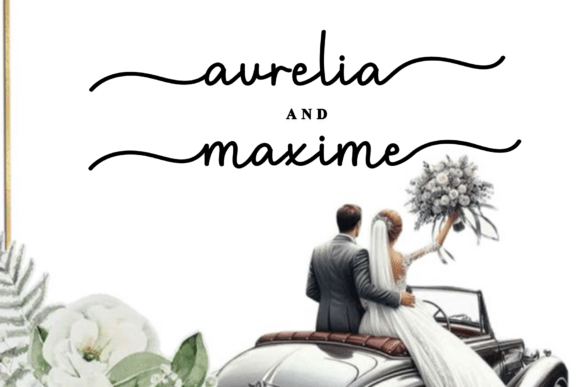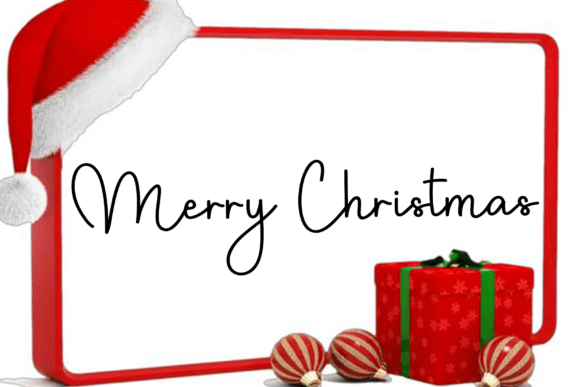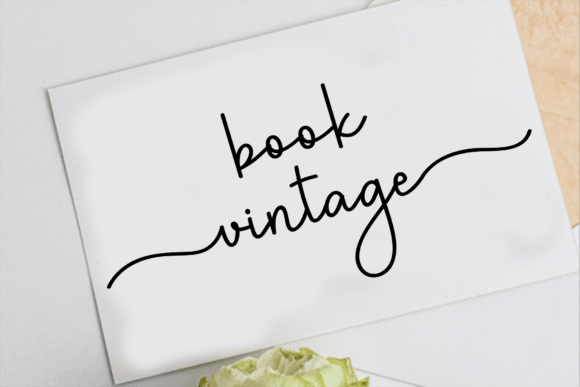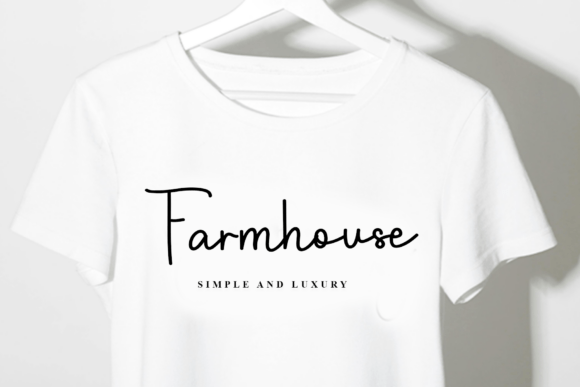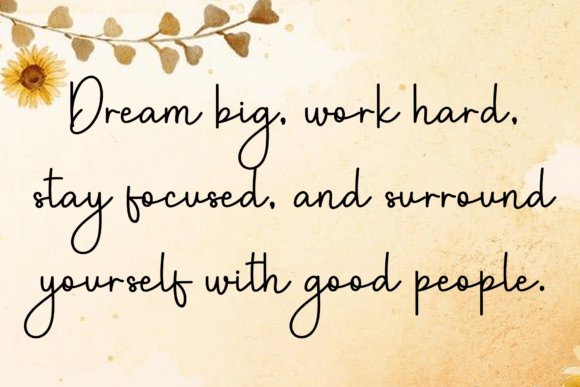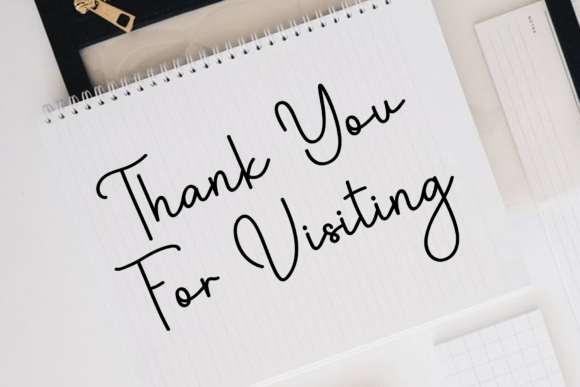
Introducing Grandma Font: A Unique and Versatile Typeface for Designers and Crafters
In the world of typography, a good font can make all the difference in a design project. It’s what sets the tone, conveys the message, and captures the audience’s attention. For designers and crafters looking for a font that’s both beautiful and eye-catching, Grandma Font is an excellent choice. This stunning typeface is designed with a soft, unique touch that gives it a special character, making it perfect for a wide range of creative projects.
The Distinctive Features of Grandma Font
Grandma Font is a beautifully crafted typeface that boasts distinctive strokes, giving it a one-of-a-kind charm. Its unique design makes it stand out from other fonts, making it an excellent choice for designers who want to add a personal touch to their work. The font’s soft and natural style is perfect for creating visually appealing designs that resonate with audiences across different artistic and creative fields.
One of the best things about Grandma Font is its versatility. With a wide range of characters, this font is perfect for various design projects, crafts, and other creative works. Whether you’re working on a logo, brochure, or social media graphics, Grandma Font is an excellent choice. Its unique style and charm can be used to create stunning designs that capture the audience’s attention and leave a lasting impression.
Grandma Font is an ideal choice for designers and crafters who want to add a personal touch to their work. Its natural font style makes it perfect for a wide range of products, including:
- Brochures and flyers
- Crafts and DIY projects
- Stationery and invitations
With Grandma Font, designers and crafters can create stunning designs that are both visually appealing and meaningful. Its unique style and charm make it an excellent choice for projects that require a personal touch.
Why Choose Grandma Font?
So, why choose Grandma Font over other fonts? Here are a few reasons:
- Unique and eye-catching design: Grandma Font boasts a distinctive style that sets it apart from other fonts.
- Versatility: With a wide range of characters, this font is perfect for various design projects and crafts.
- Natural font style: Its soft and natural style makes it perfect for creating visually appealing designs.
In conclusion, Grandma Font is a beautiful and eye-catching typeface that’s perfect for designers and crafters looking for a unique and versatile font. Its distinctive strokes, wide range of characters, and compatibility with various applications make it an excellent choice for a wide range of creative projects. Whether you’re working on a logo, brochure, or social media graphics, Grandma Font is sure to enhance your designs and make them appealing to many audiences.